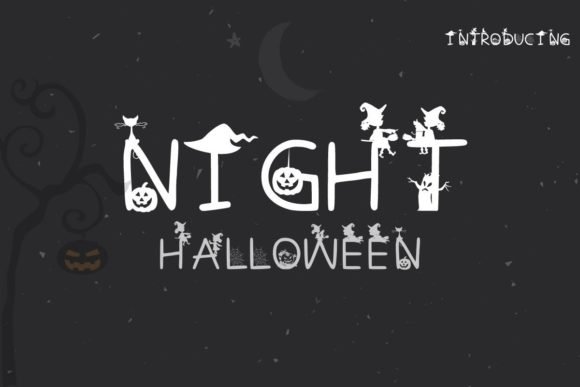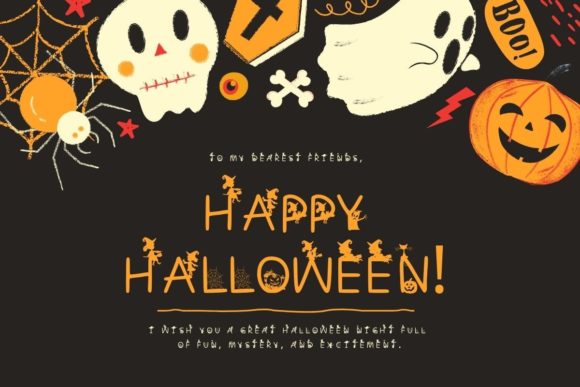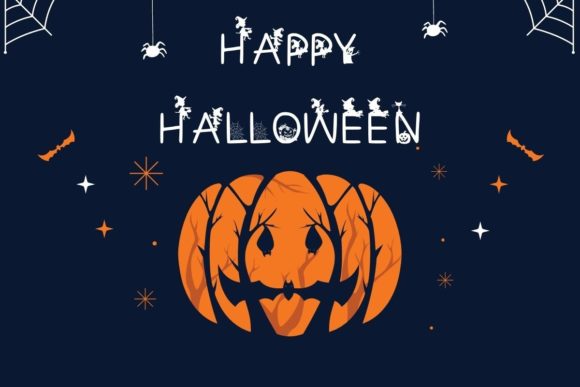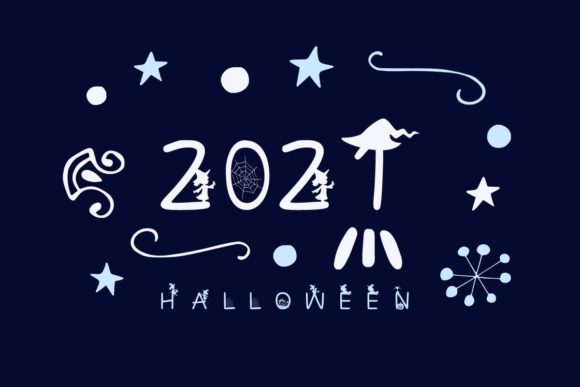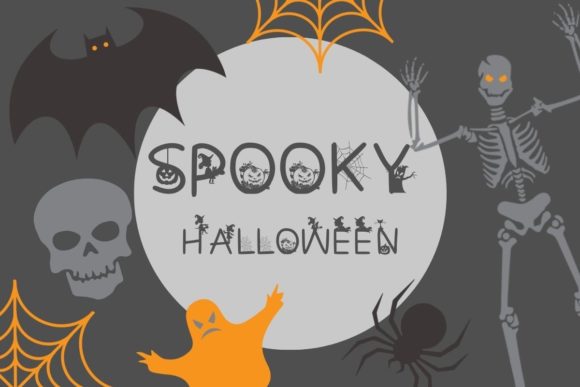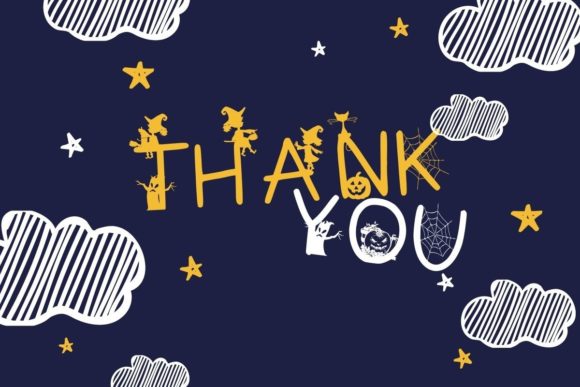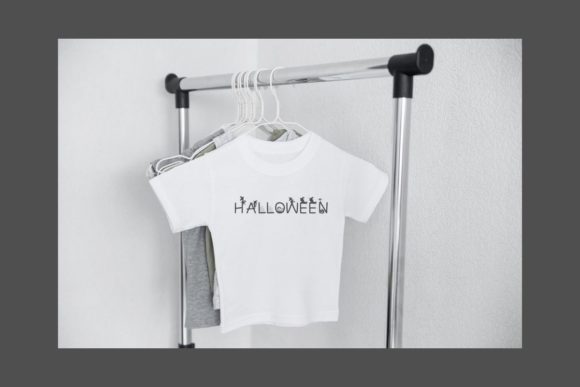
Unleash the Spooky Spirit with Halloween Night Font
Do you ever find yourself browsing through design inspiration boards on a dark and stormy night, feeling the urge to create something eerie and unforgettable? I’m guessing you do, because who doesn’t love the thrill of crafting something that sends shivers down people’s spines? For designers like us, it’s a moment of pure creative bliss.
That’s where the Halloween Night Font comes in – a bold and creepy decorative font that’s sure to elevate your spooky creations to the next level. This font is not just a design element, but a key to unlocking the essence of Halloween. Its unique style and feel will transport your audience to a world of mystery and suspense.
By incorporating the Halloween Night Font into your designs, you’ll not only create an atmosphere of eeriness, but also showcase your artistic skills. Whether you’re a seasoned designer or just starting out, this font is a valuable addition to your toolkit, guaranteed to leave a lasting impression on your viewers.
Halloween Night Font Key Features
- Font Family: Halloween Night is a unique, hand-drawn font designed specifically for Halloween and fall-themed projects.
- Unique Characteristics: Features a spooky, hand-drawn design with intricate details, making it perfect for creating eerie and festive Halloween-themed designs.
Halloween Night Font Review
Overall, I think the Halloween Night Font is a unique and creative addition to any spooky-themed project. ✨ The font’s bold, gothic style immediately evokes the feeling of Halloween, and its intricate details add a level of sophistication that’s hard to find in other fonts.
One of the things I love about this font is its versatility. ✨ It can be used for a wide range of projects, from invitations and posters to social media graphics and even web design. The font’s bold style also makes it perfect for use in headings and titles.
- Unique and creative design
- Perfect for spooky-themed projects
- Versatile and can be used in a wide range of projects
- Bold style is perfect for headings and titles
- May not be suitable for projects that require a more subtle or elegant design
- Some characters may not display properly in certain font sizes or styles
- Not as wide a character set as some other fonts
Overall, I would recommend the Halloween Night Font to anyone looking for a unique and creative addition to their spooky-themed project. Just be aware of the limitations and use it in a way that complements your design.
Tips for Getting the Most Out of Halloween Night Font
For the best results, use Halloween Night Font in bold or italic styles to create a spooky atmosphere. Combine it with other fonts for a unique look. Experiment with different text colors and backgrounds to enhance the font’s effect.
Halloween Night Font is perfect for:
- Spooky invitations and party decorations
- Halloween-themed social media graphics and posters
- Creepy book covers and horror movie titles